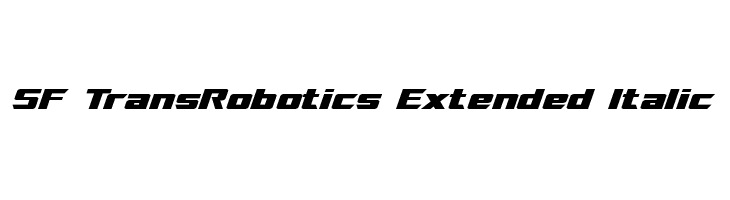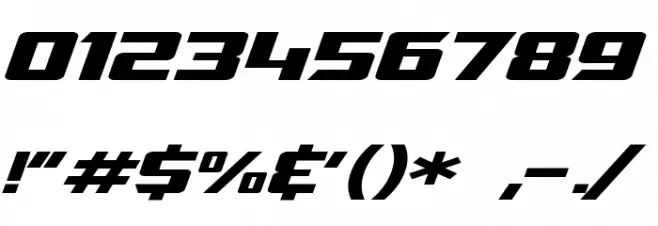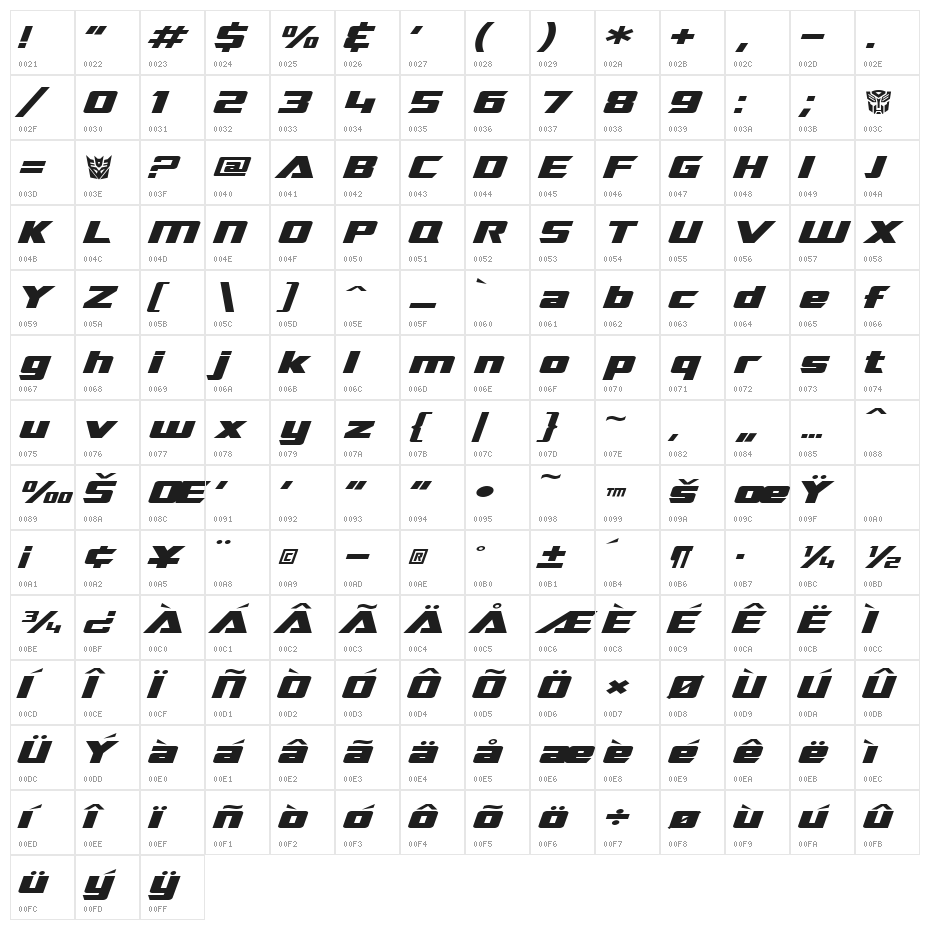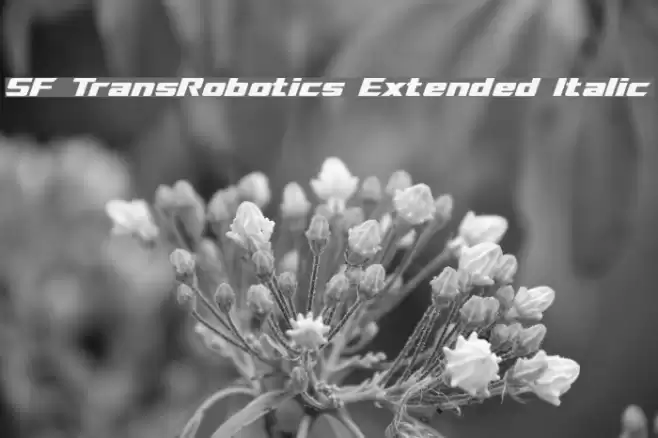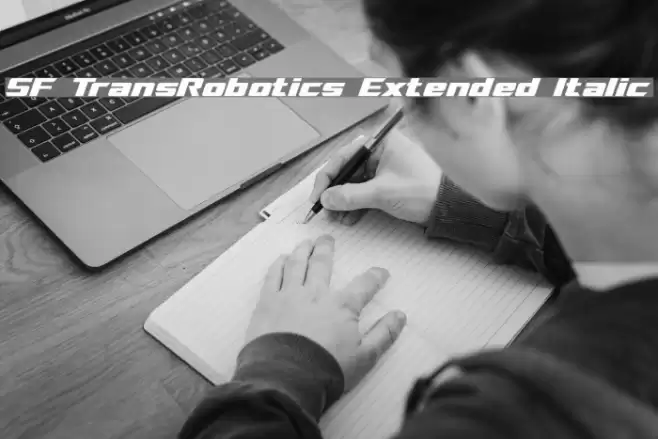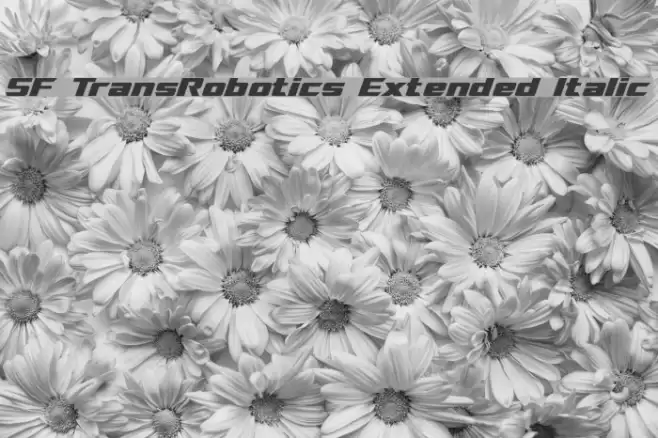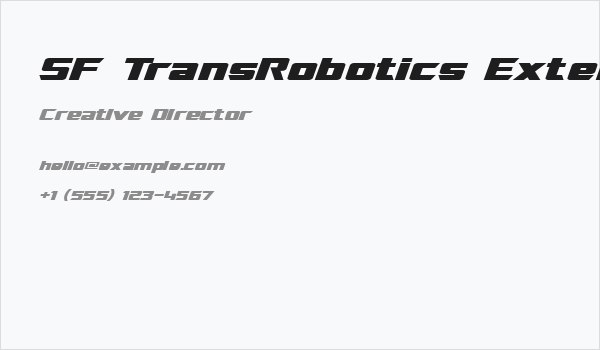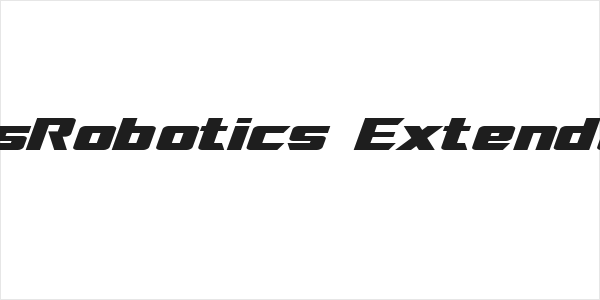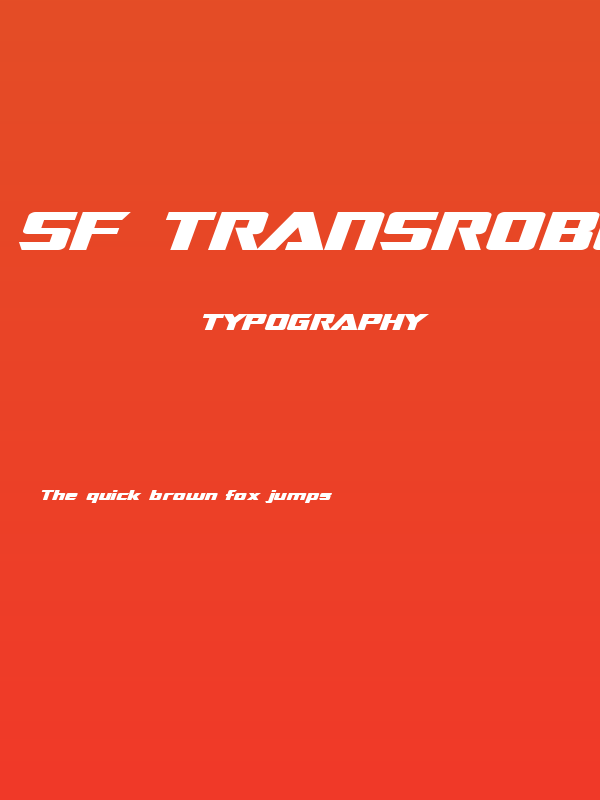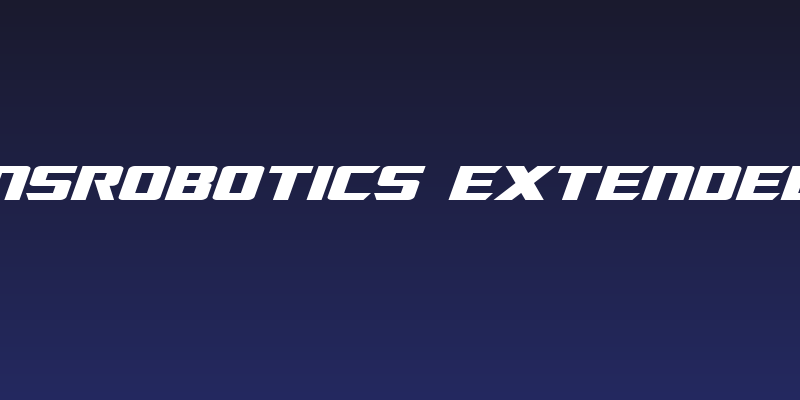
SF TransRobotics Extended Italic Font
SF TransRobotics Extended Italic Description
This font features a futuristic and dynamic design with a strong emphasis on angular shapes and sharp edges. The characters are italicized, giving a sense of motion and speed. The extended width of the letters enhances its bold presence, making it ideal for impactful statements. The uppercase and lowercase letters maintain a consistent style, with the lowercase slightly more rounded. Numbers and special characters follow the same angular and bold design, ensuring uniformity across all elements. The font's modern aesthetic is perfect for projects that require a tech-savvy or forward-thinking appearance.
| Proposed Projects | Ideal for technology branding, sci-fi movie posters, video game titles, and automotive advertisements. |